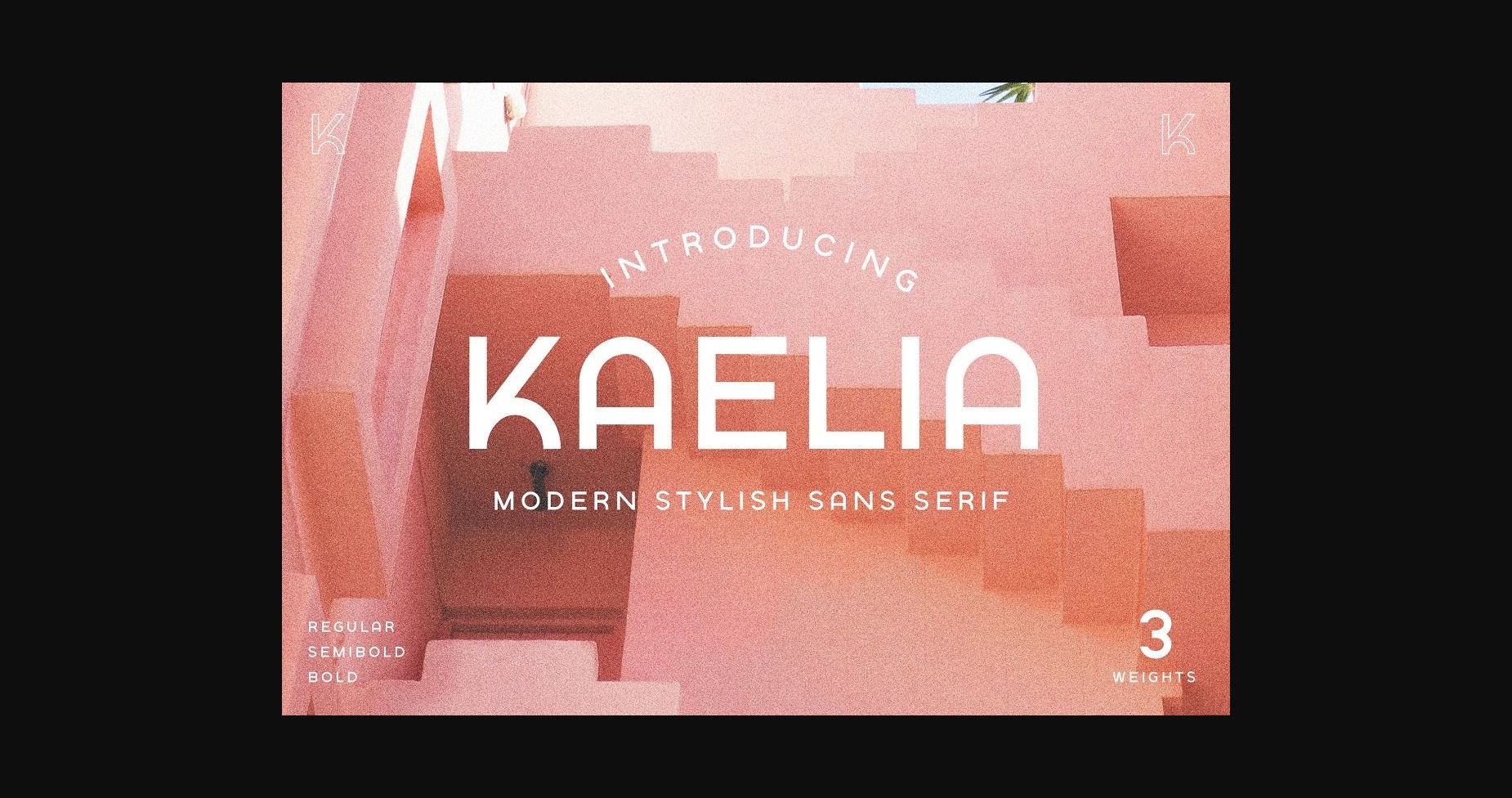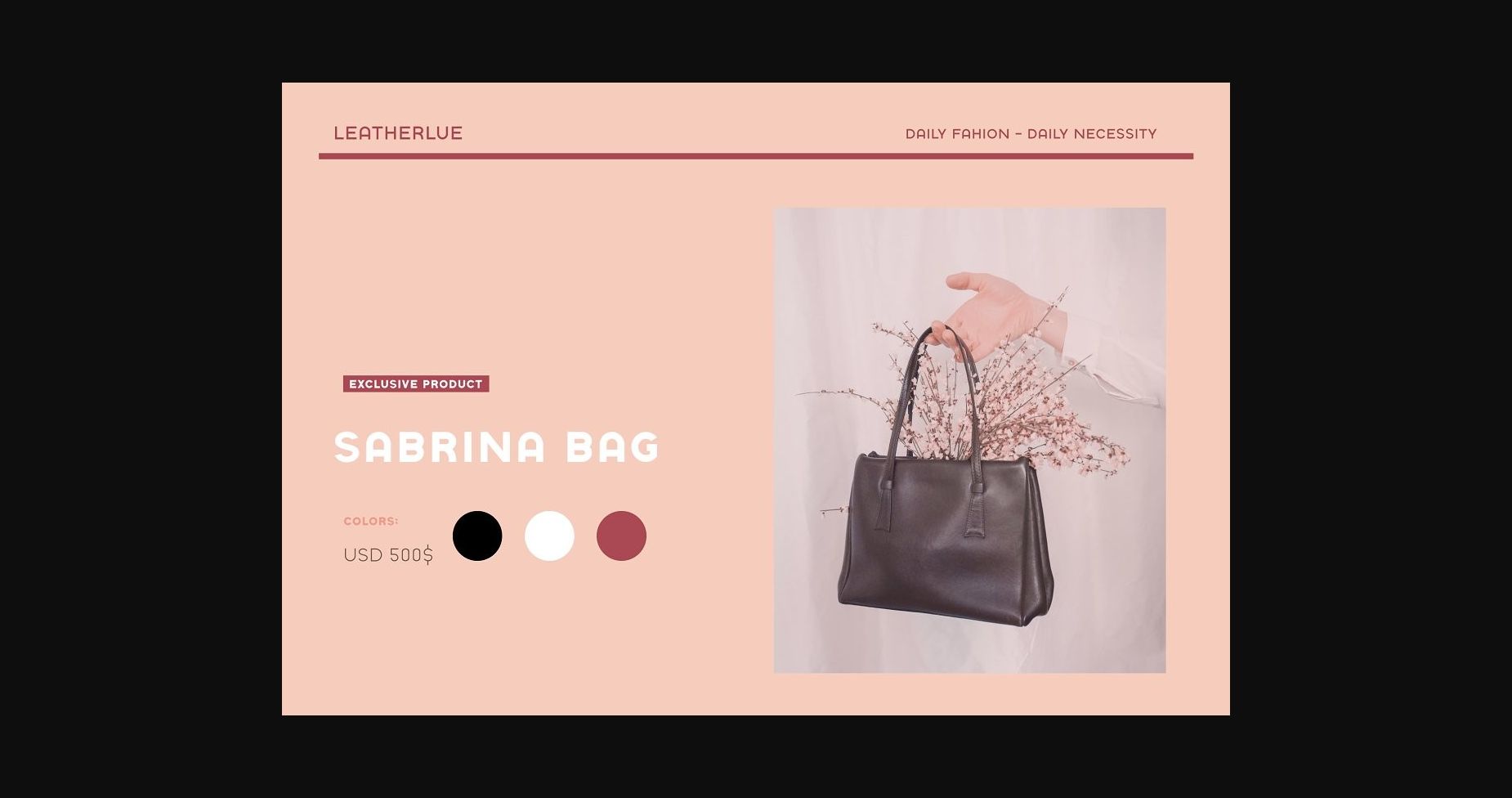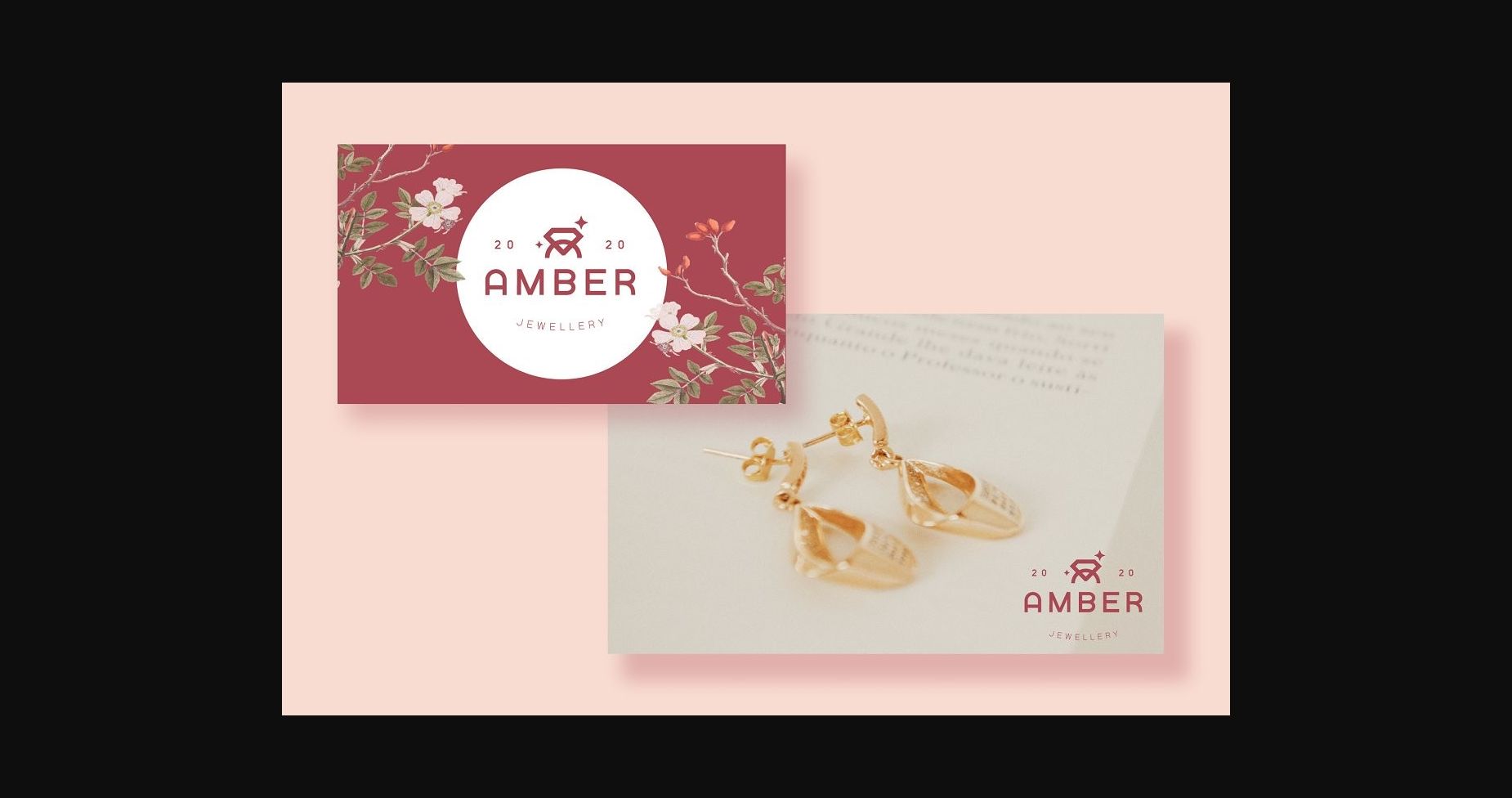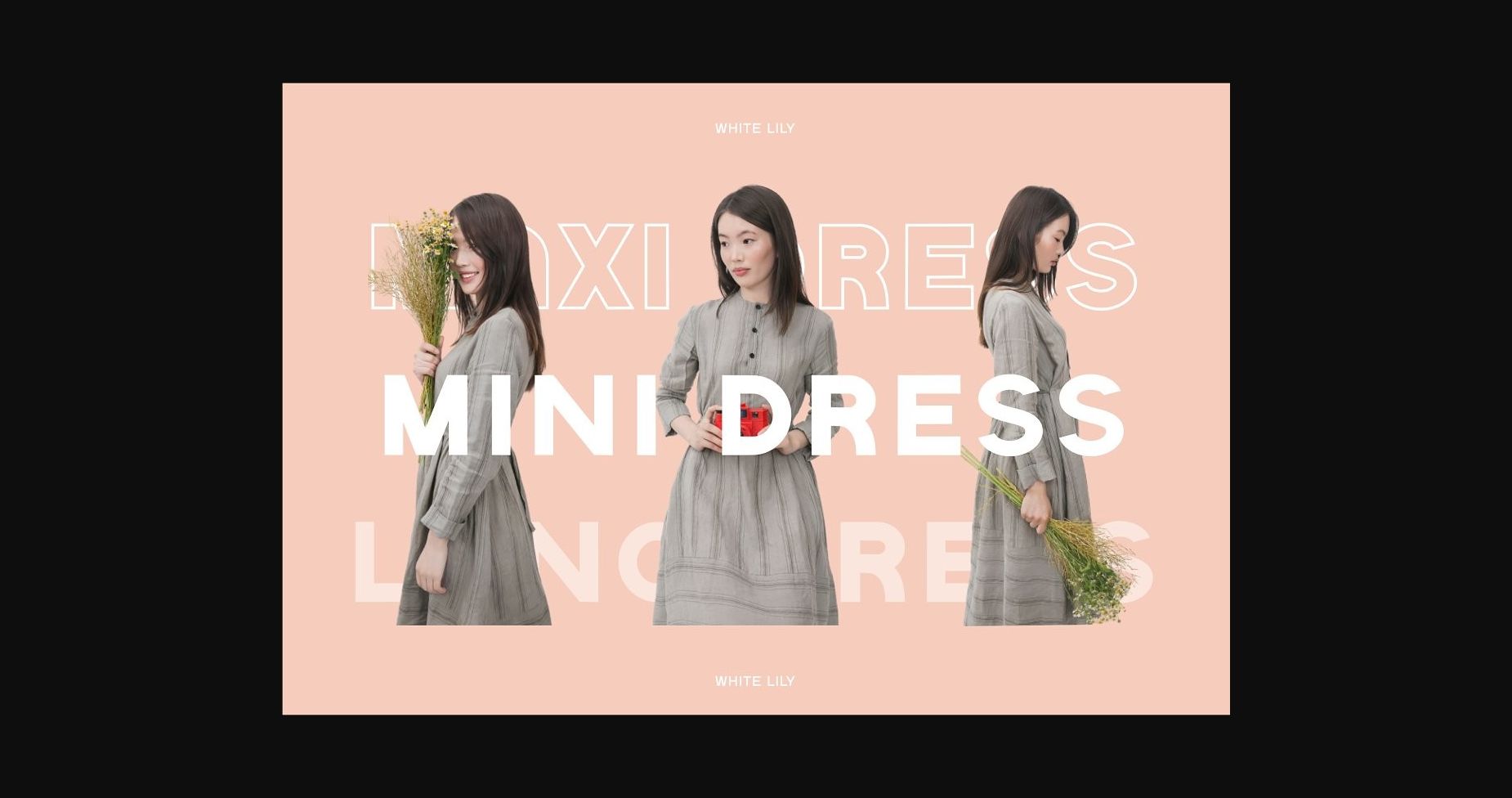
About Kaelia Font
Kaelia is a modern and stylish sans serif font. No matter the topic, this font will be an incredibly asset to your fonts’ library, as it has the potential to elevate any creation.